Making Fonts
A Comprehensive Guide to Professional Type-Design
Chris Campe; Ulrike Rausch
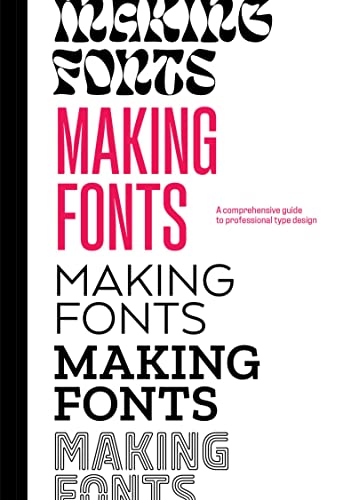
Crafting the perfect typeface can feel like an elusive quest, akin to hunting for the Holy Grail of design. In their groundbreaking work, Making Fonts: A Comprehensive Guide to Professional Type-Design, Chris Campe and Ulrike Rausch open the gates to this enchanting realm, inviting both seasoned designers and curious newcomers to delve into the subtleties of font creation. This book is not just a collection of technical instructions; if anything, it's a passionate manifesto that reverberates with the heartbeat of typography.
Font design often goes unnoticed, lurking in the shadows of our daily interactions with digital and print media. Yet, it is the ladder upon which the structure of communication stands. Each letter is a sculpted character, a sentinel of expression that shapes our thoughts and ideas. Campe and Rausch expertly highlight this by combining artistic finesse with technical expertise, turning what could easily be a dry manual into a captivating journey through the design process.
From the moment you immerse yourself in their narrative, you'll grasp the vital importance of each curve and angle, understanding how they influence perception and evoke emotion. There is an electrifying sense of empowerment in realizing that you, too, can breathe life into your own designs with the knowledge gleaned from these pages. The authors guide you through the evolution of typefaces, revealing how historical context has influenced styles and trends, elevating your understanding and appreciation of what goes into each font masterpiece.
Countless readers have immersed themselves in this treasure chest of insights. Comments from the design community echo a chorus of appreciation, with many expressing how this book has sparked a new fire in their creative pursuits. One comment resounds in particular: "It reignited my passion for typography and made me realize the power of fonts in branding and storytelling." This ignites a truth that cannot be asserted enough-fonts are not merely letters; they are canvases of culture and personality.
Amid these praises, skeptics arise. Some argue that while the information is valuable, it may overwhelm beginners with its depth and technical jargon. But is it not the very complexity of design that makes it thrilling? This advanced exploration shouldn't frighten you; rather, it challenges you to expand your horizons and deepen your creative toolkit.
An essential component of Making Fonts is the balance it strikes between theory and practice. Readers are not merely spectators; they are ushered into an interactive experience, learning through exercises designed to unlock their potential and push the boundaries of their creativity. This book becomes your mentor, coaxing the novice designer to unleash their imagination while educating the skilled artist on nuanced techniques and advanced design principles.
As you navigate through chapters filled with rich illustrations and engaging explanations, you're not just absorbing information-you're being transformed. The essence of design is rooted in trial and error, in understanding how your creations resonate with an audience. Campe and Rausch remind us that every great designer once grappled with self-doubt and imperfection, illuminating the path toward mastery as one paved with persistence.
In a world passionately driven by visual communication and digital storytelling, the insights contained within Making Fonts: A Comprehensive Guide to Professional Type-Design are both timely and imperative. This book urges you to question the ordinary and explore the extraordinary, compelling you to recognize the artistry behind every stroke you encounter.
So take a leap of faith into the world of typography. Embrace the raw power of type design, as it whispers in your ear, urging you to express collaborations of letters that will resonate across generations. After all, the next great font could spring forth from your fingertips, igniting a wildfire of creativity in someone else. The journey of a thousand designs begins with a single character. 🌟